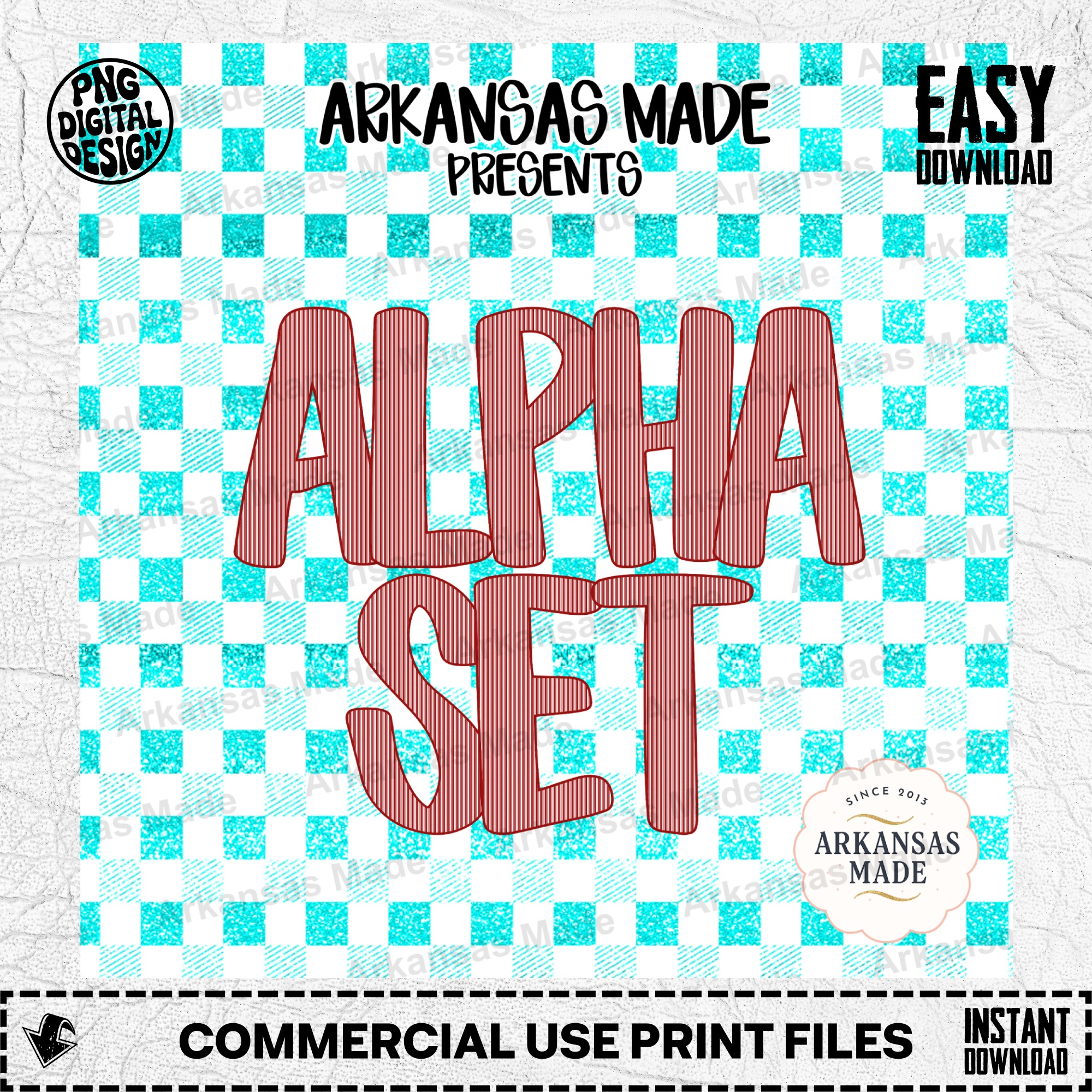
Red Striped Letters PNG Alpha Set – Varsity Athletic Font Digital Alphabet, Pinstripe Monogram Clipart, Craft Design Bundle for Cricut &
Get your instant download Red Striped Letters PNG Alpha Set! Perfect for crafting, this varsity athletic font digital alphabet brings a bold, classic touch to any project. Unleash your creativity with this versatile pinstripe monogram clipart, ideal for DIY enthusiasts, small business owners, and educators. Whether you’re customizing apparel, creating school spirit gear, or personalizing gifts, these high-quality PNGs are perfect for Cricut, sublimation, and other digital design needs. It’s a fantastic gift for crafters, teachers, or anyone looking to add a unique, sporty vibe to their personalized creations.